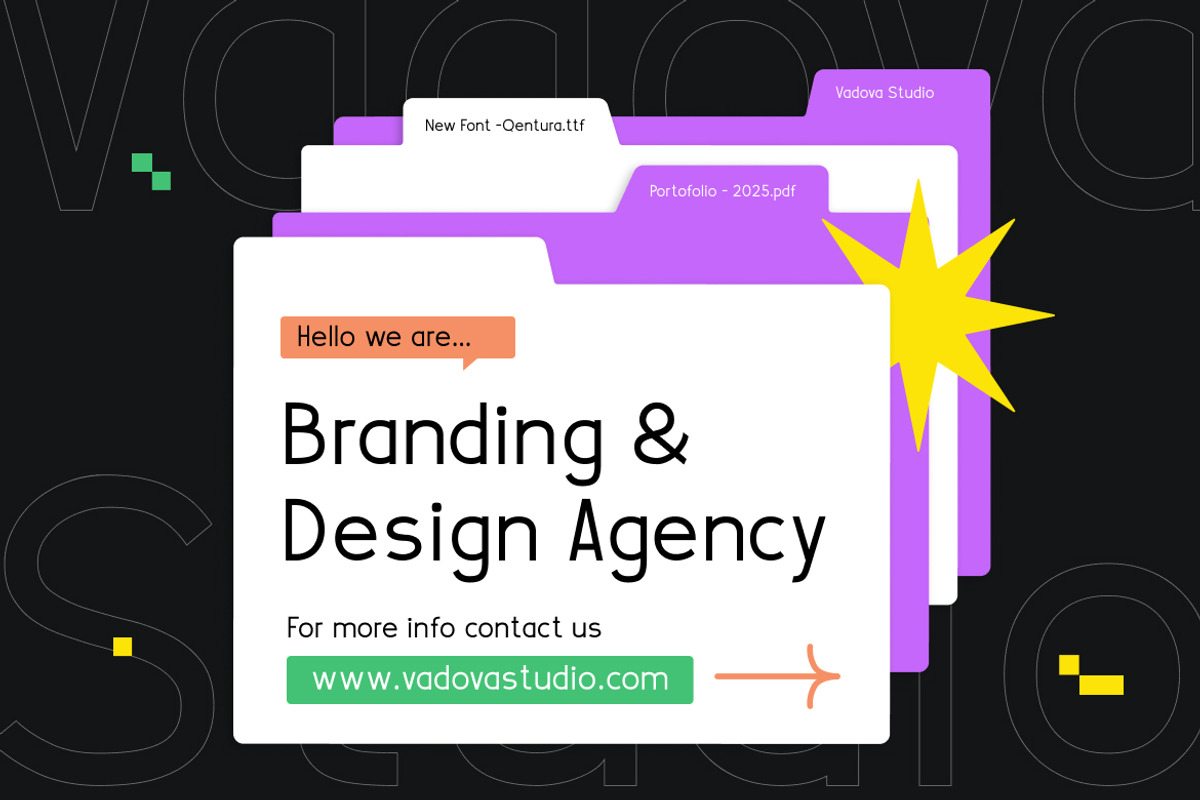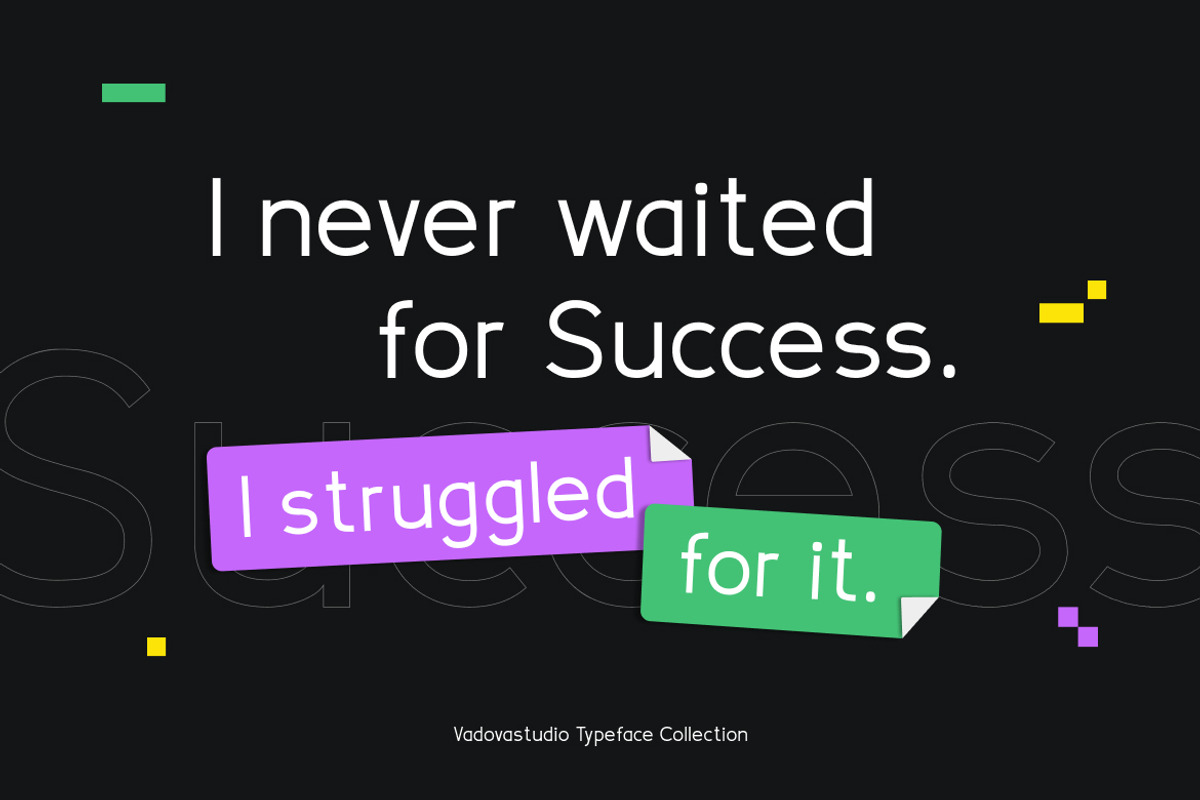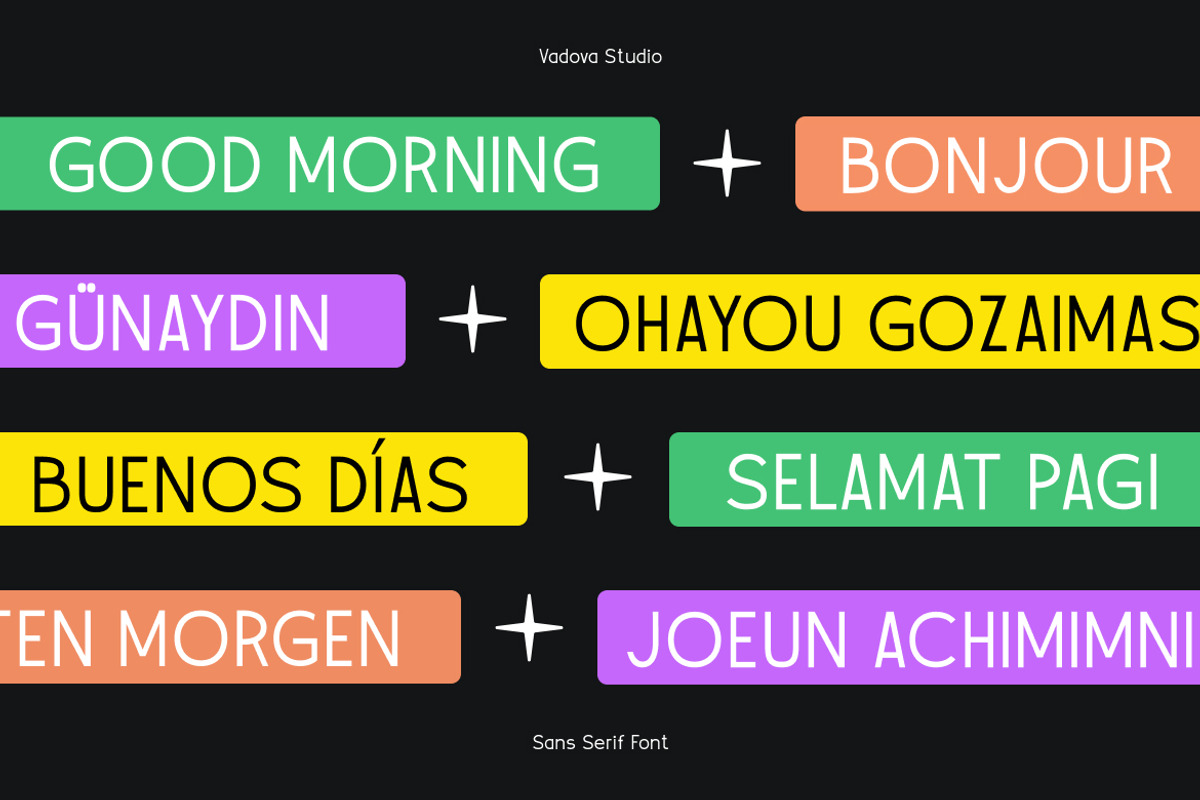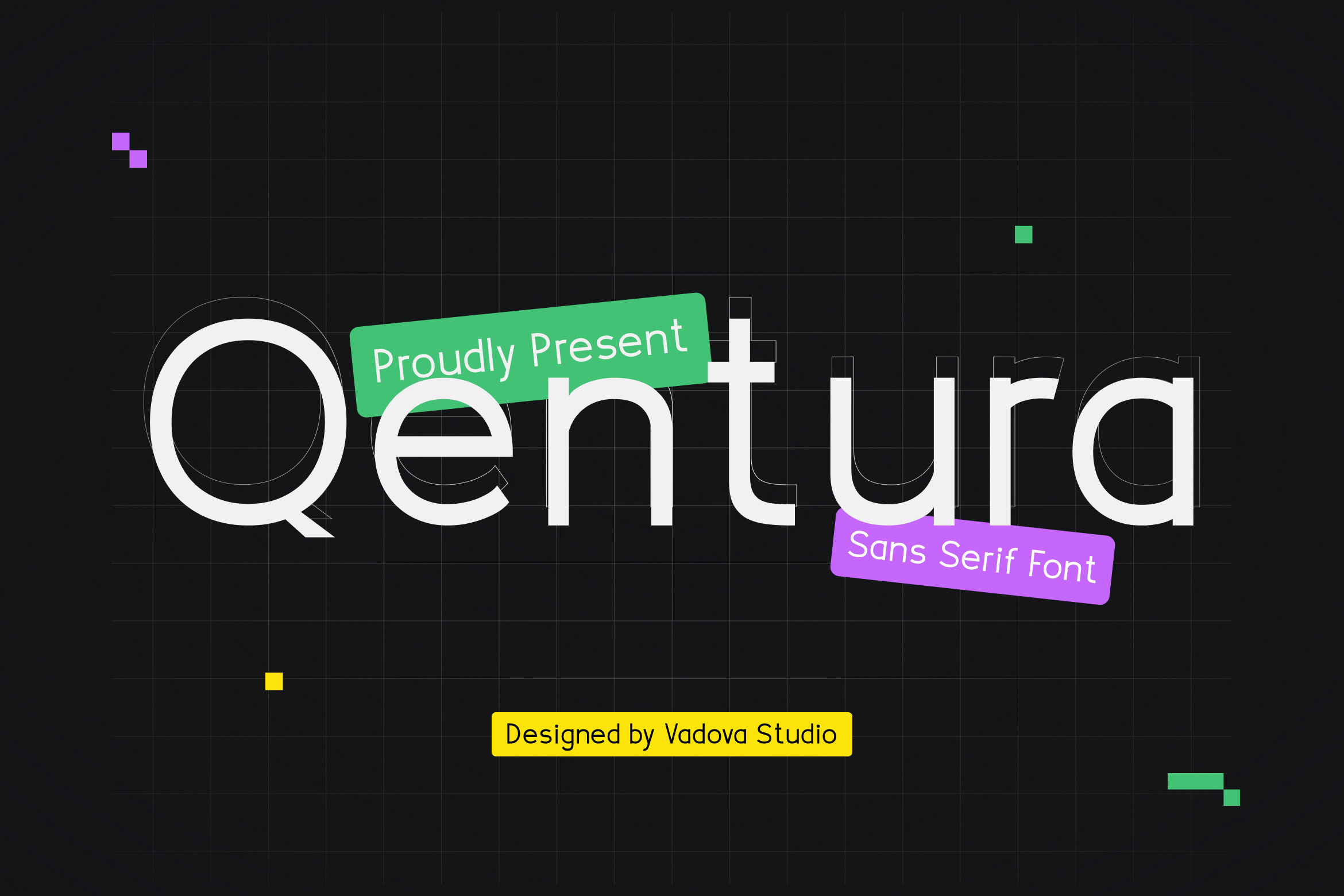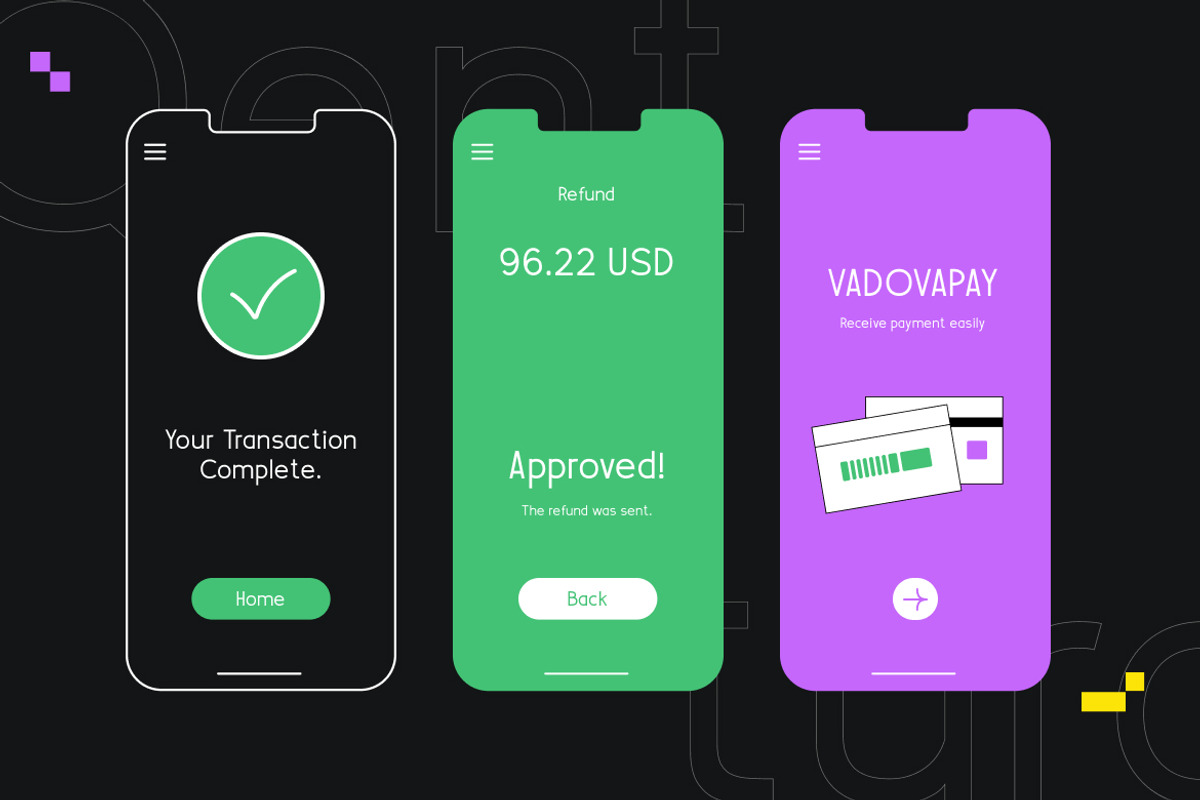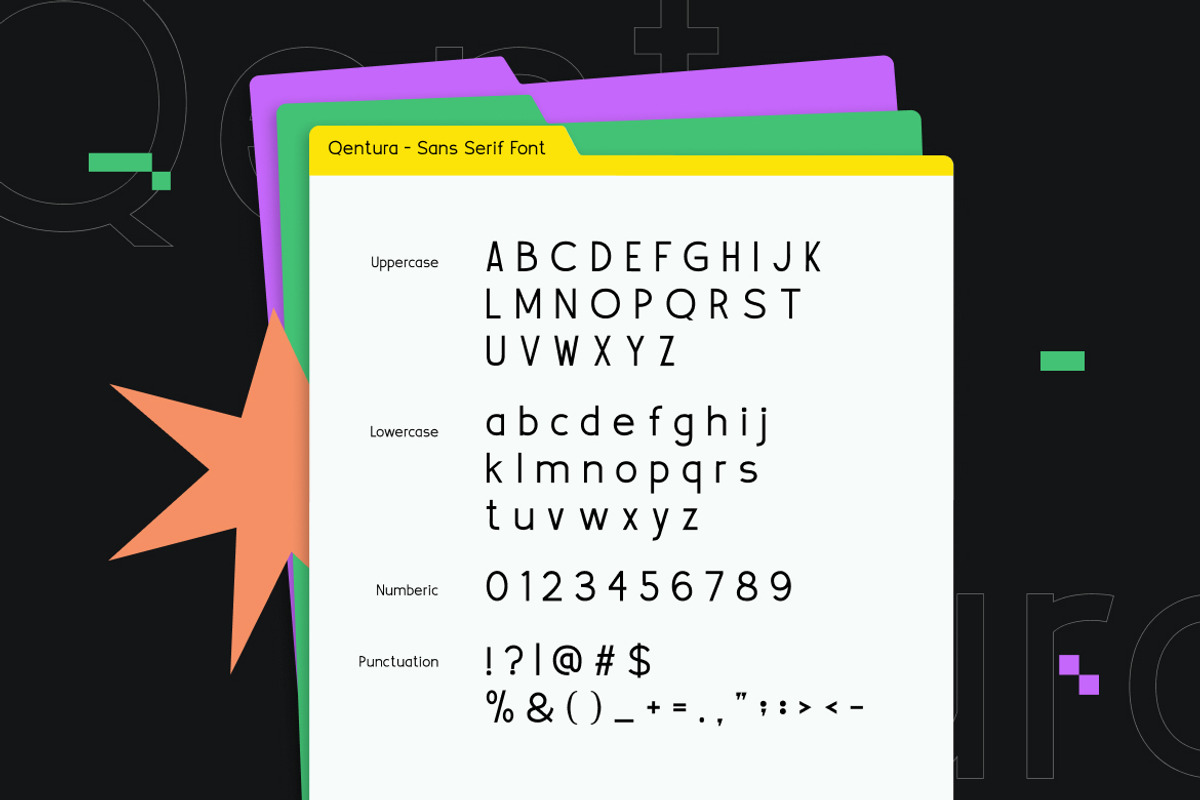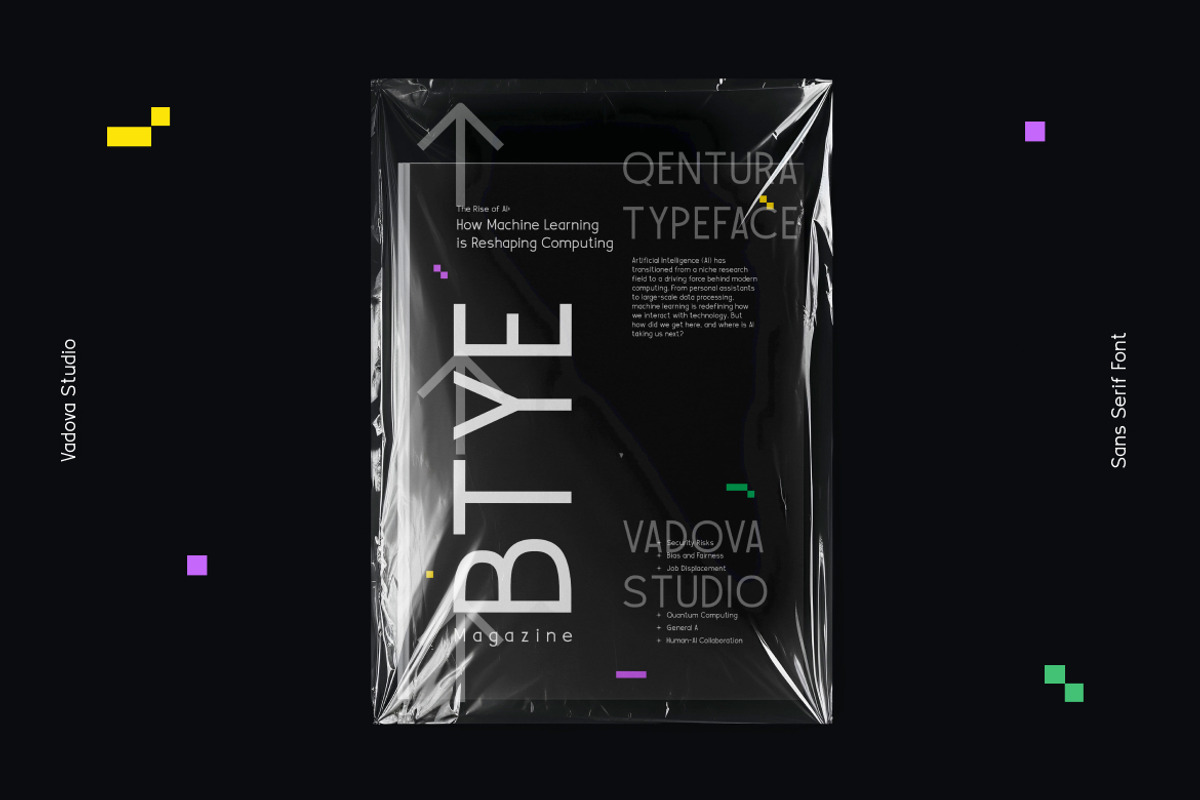
Qentura Sans Serif Font
Qentura is a clean, modern sans serif typeface crafted with precision to support clarity, efficiency, and visual balance across a wide range of applications. This font is designed with geometric consistency at its core, enhanced by subtle humanist influences that give each character a warm, contemporary feel. Qentura includes full uppercase and lowercase alphabets, numerals, punctuation, and essential symbols, along with multilingual support for international versatility. Its open apertures and uniform stroke weight improve legibility at both large and small sizes, making it an excellent choice for user interfaces, branding, packaging, editorial layouts, and digital communication.
Designed for modern designers, developers, and marketing professionals, Qentura balances professional tone with an approachable aesthetic making it an ideal choice for forward-thinking brands, minimalist projects, and creative visuals that require both precision and character. Whether you're building a logo, composing UX wireframes, or setting clean headlines, Qentura offers the typographic integrity and visual harmony your work deserves.
- Geometric base structure for a clean, modern appearance
- Subtle humanist touches in character design for a friendly and approachable feel
- Rounded terminals and smooth curves enhance readability and warmth
- Consistent vertical stress and uniform stroke weight ensure visual harmony
- Optimized letter spacing for excellent performance in both display and body text
- Brand identity systems looking for a modern, professionl
- UI/UX interfaces and tech-driven needing clear and clean typography
- Editorial magazines, minimalist books, and publication layout
- Product packaging and labeling clarity and modern aesthetics
- Social media graphics,and marketing kits with a refined, understated style
Define your design with structure and style Qentura delivers balance and modernity